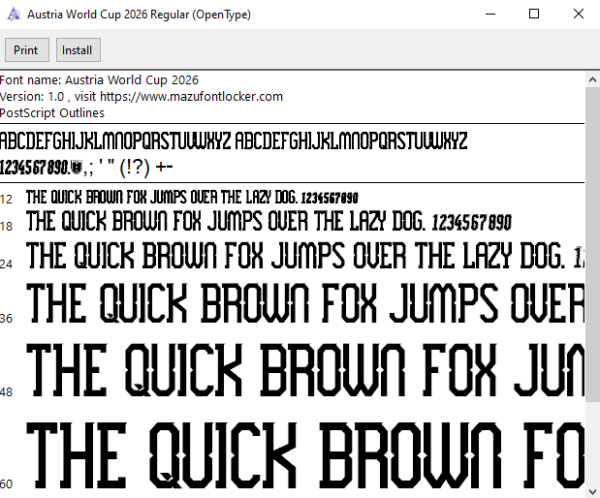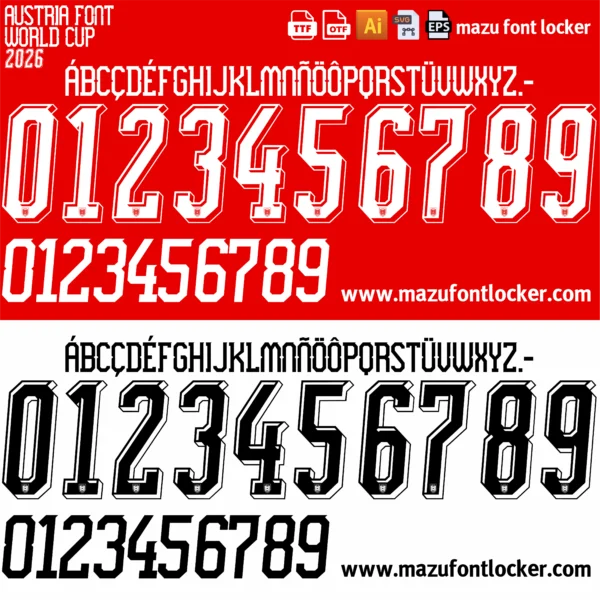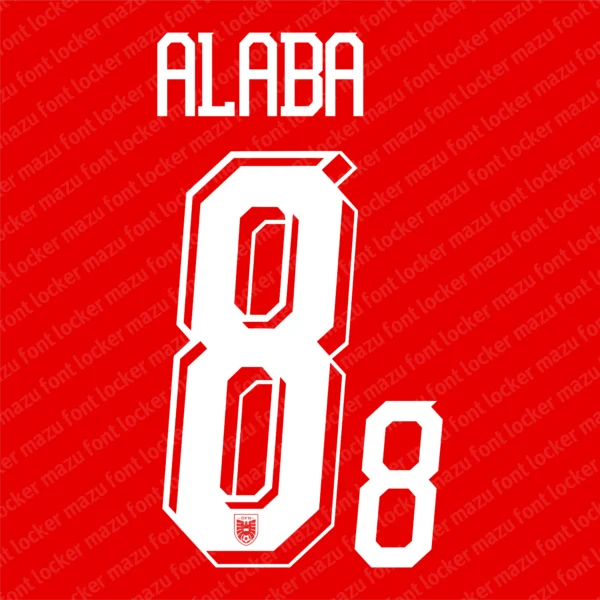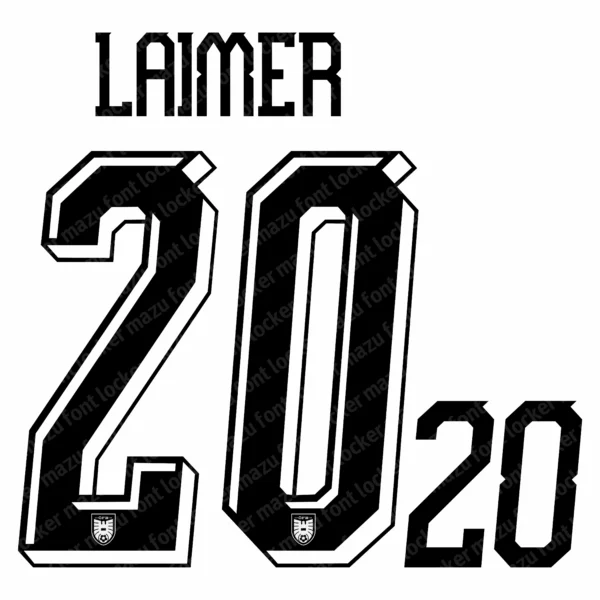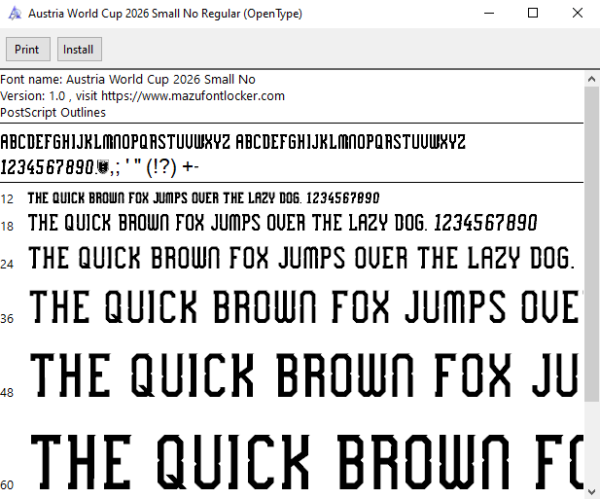
Austria World Cup 2026 Font Vector – Epic Wunderteam Masterpiece
Austria World Cup 2026 Font Vector – Authentic Das Team Typeface
The Austria World Cup 2026 Font Vector is a premium typeface that captures the bold and vibrant official lettering style inspired by Das Team for the 2026 FIFA World Cup. This high-quality vector font kit delivers the exact modern aesthetic used for Austria’s national team kits, celebrating the spirit, energy, and pride of Austrian football.
Why Choose Austria World Cup 2026 Font Vector
This font stands out because of its sharp vector precision and strong national identity. Every letter and number is crafted to reflect the powerful, confident typography expected on Das Team’s 2026 World Cup kits. Whether you’re designing official-looking templates or nostalgic football content, this font gives your projects that authentic Austrian flair.
The letterforms are tall, bold, and highly readable with clean, strong strokes. The design combines modern sharpness with the proud character of Austrian football typography.
The numerals feature bold curves and firm edges, ensuring excellent visibility on player jerseys while maintaining a premium and dynamic appearance suitable for both print and digital use.
• Full uppercase A–Z and numbers 0–9 in authentic Austria 2026 style
• Special Austria crest glyph – Press the “:” (colon) symbol to insert the Austria logo
The Austria World Cup 2026 Font Vector is an independently designed typeface package. It is carefully crafted to replicate the official shirt lettering style inspired by Austria’s 2026 World Cup campaign. This font kit is perfect for creative projects, fan edits, jersey designs, and football graphics.